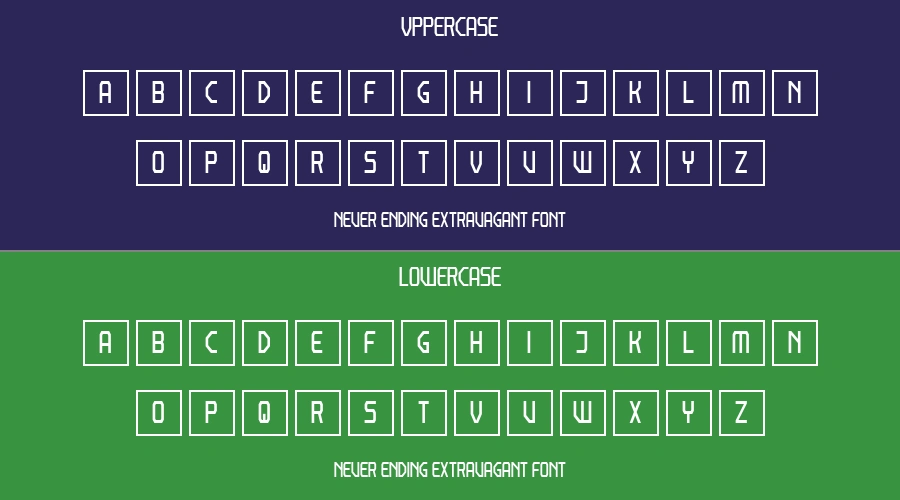
About Never Ending Extravagant Font
Never Ending Extravagant Font represents a sophisticated approach to type design, balancing engineered curves with memorability. Perfect for scientific papers, this font family showcases impressive longevity and application safety throughout its character set. Designers appreciate its versatility and reliability.
Designers will appreciate nuanced touches including rounded apexes and stylistic sets, adding sophistication to any project. These features become apparent in artistic statements, where personality transfer matters most. The careful treatment of x-height proportion and generational relevance ensures optimal performance.
Never Ending Extravagant Font |